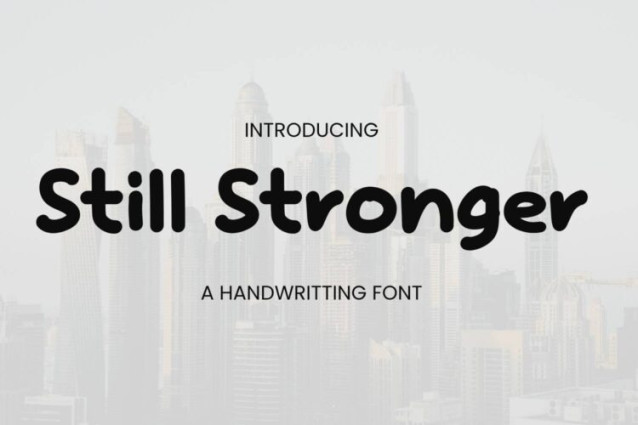
Still Stronger Font
Still Stronger Font is a simple and friendly handwritten font. Its natural and unique style makes it incredibly fitting to a large pool of designs. The only limit is your imagination!